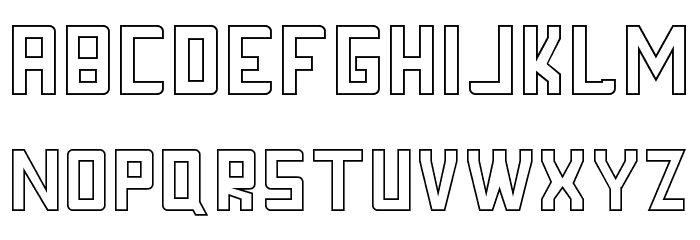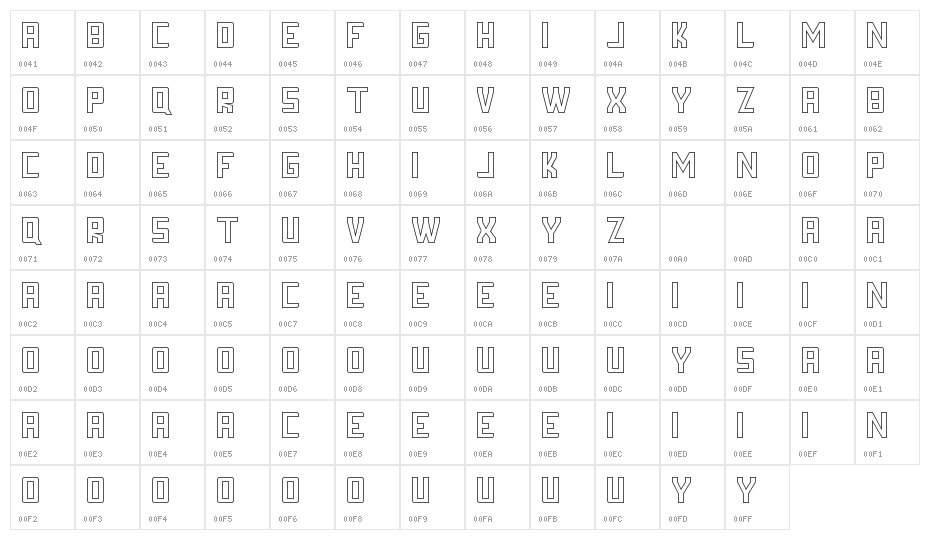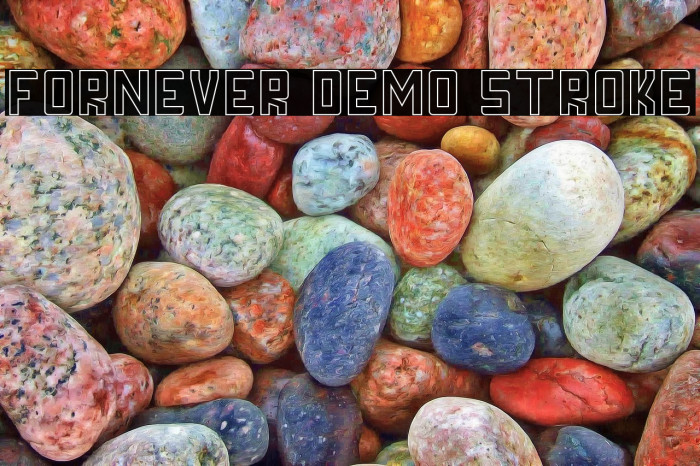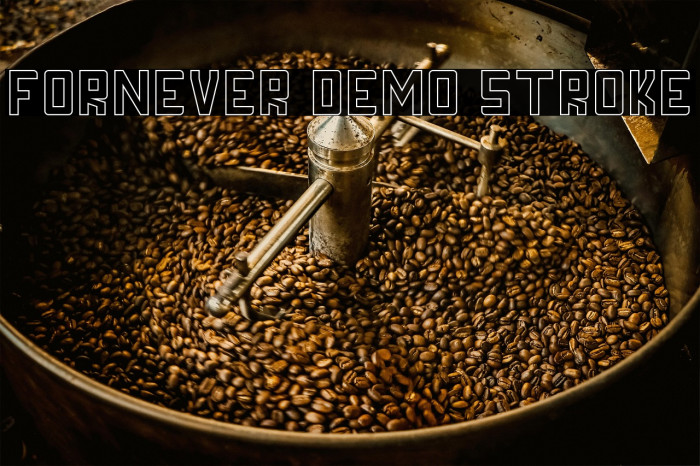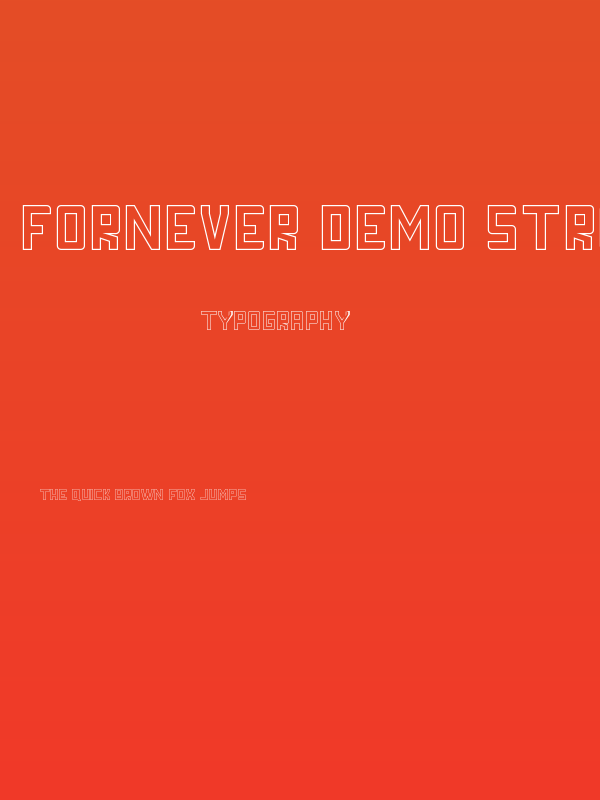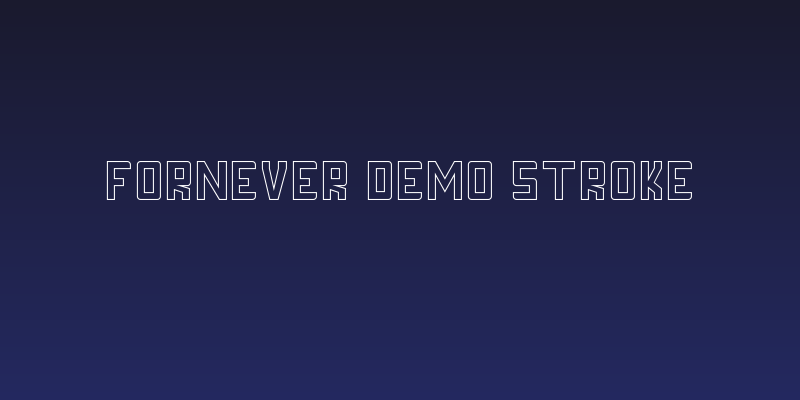
FORNEVER DEMO Stroke Font
FORNEVER DEMO Stroke Description
This font features a bold, geometric design with a distinct outline style, giving it a modern and industrial appearance. The characters are constructed with straight lines and sharp angles, creating a sense of precision and strength. The uppercase letters are uniform in height, while the overall design maintains a consistent stroke width throughout. This font's outline nature makes it ideal for creating striking visual effects, especially when layered over images or backgrounds. Its clean and structured form ensures readability while adding a contemporary edge to any design.
| Proposed Projects | Ideal for branding, posters, headlines, and digital artwork where a modern and bold statement is needed. |